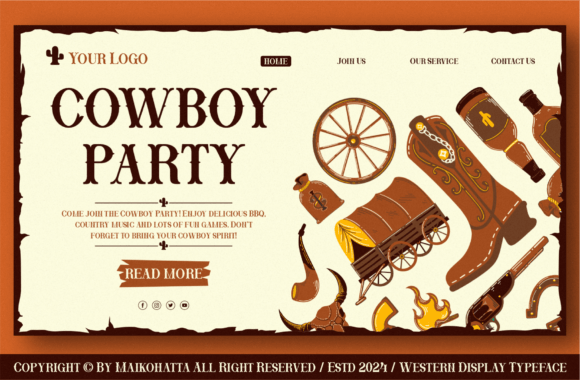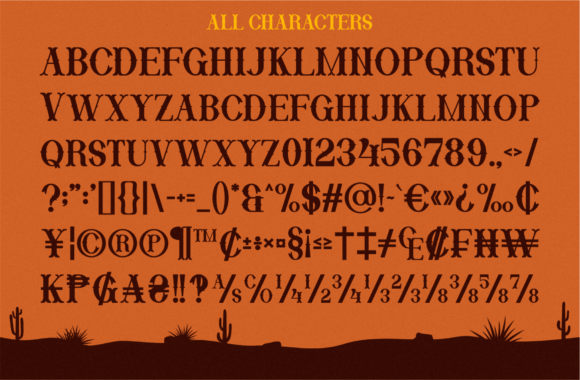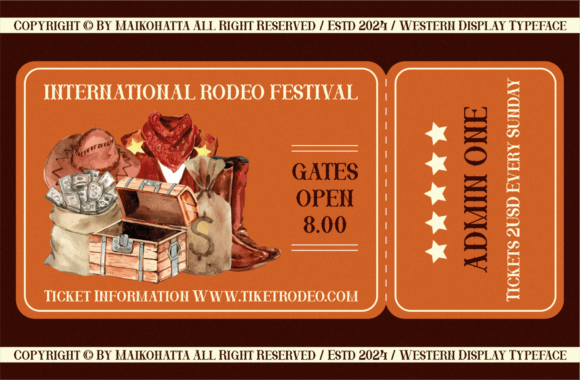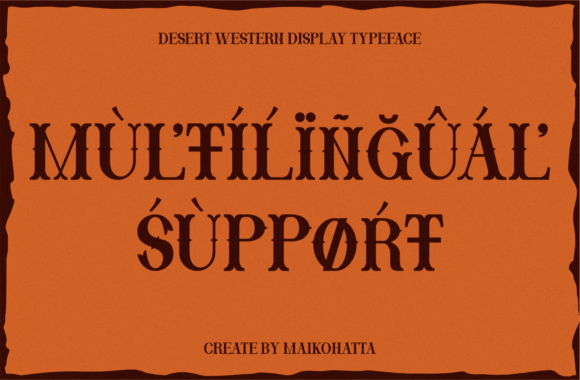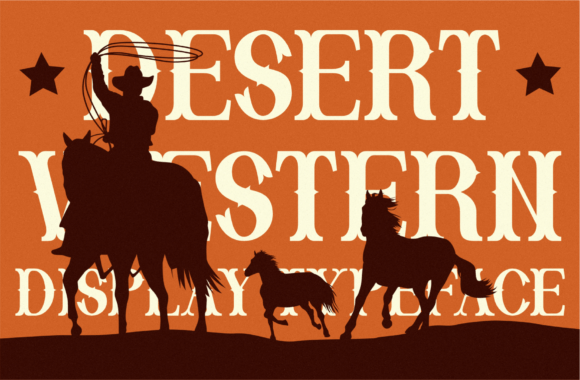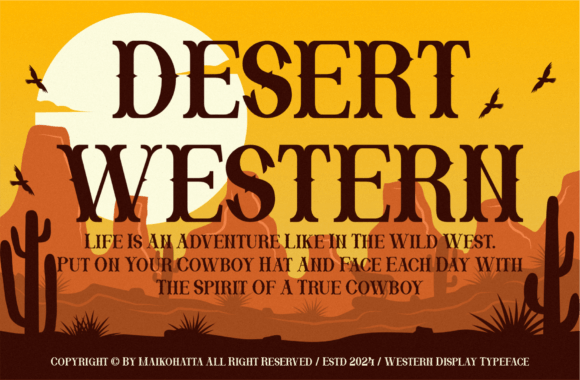
Introduction to Desert Western Font
Desert Western – Western Display: Step into the wild, dusty world of the old West.
Explore rugged landscapes, dusty trails, and the iconic spirit of cowboy life With cacti, tumbleweeds, and wide-open skies, immerse yourself in the adventure of the frontier.
Key Features of Desert Western Font